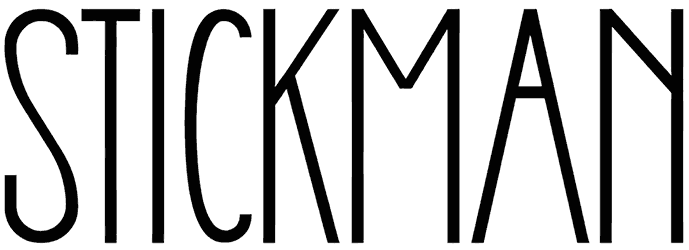
Stickman Font
If you are searching for a modern and appealing style for your words, take a look at this thin font. Stickman covers five versions, and you can use them based on your intended layout. This tall font doesn’t have lowercase letters, but you can use it for flyers, games, apparel, websites, or whatnot, and show off your creative mind.